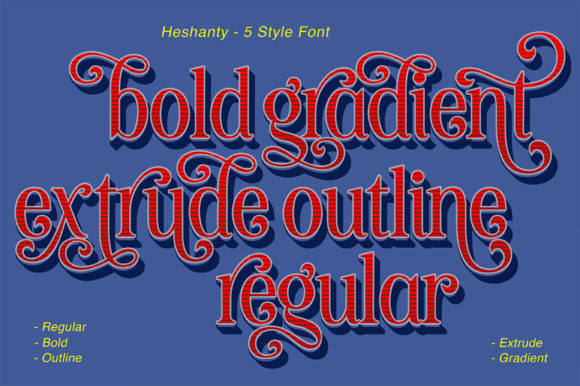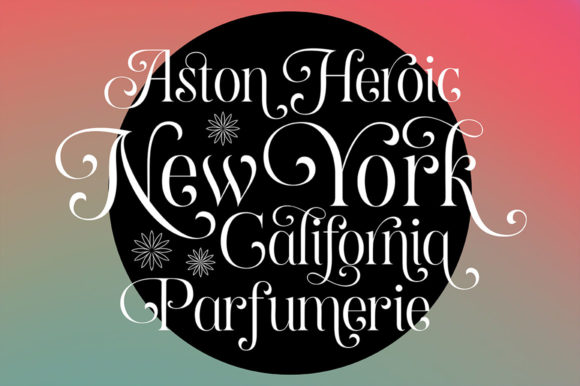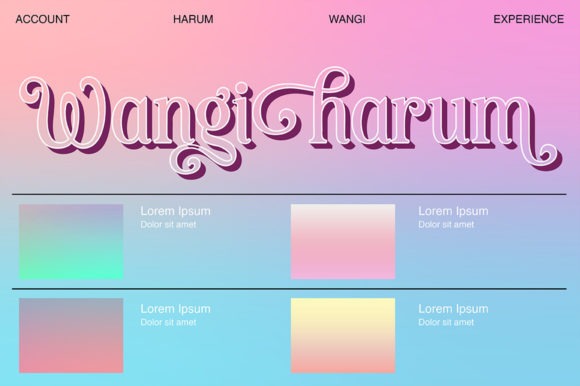
Introduction to Heshanty Font
As a designer, there’s nothing quite like the thrill of bringing a creative project to life. It’s that moment when all the elements come together, and your vision starts to take shape. For me, it’s often the font that sets the tone for the entire design. And that’s why I’m excited to introduce you to the Heshanty Font – a luxurious and elegant serif font that’s about to become your new best friend.
With its high-quality details and transparent background, the Heshanty Font is a design resource that’s sure to elevate your projects to the next level. And the best part? It’s PUA encoded, making it easy to access all the glyphs and swashes you need to create stunning designs. Whether you’re working on a free download or a high-end commercial project, the Heshanty Font is the perfect choice for designers who demand the best.
Key Features of Heshanty Font
- Unique Hand-Drawn Design: The Heshanty Font is a hand-drawn design that offers a creative and artistic touch to any project.
- Perfect for Creative Projects: The Heshanty Font is ideal for creative projects, such as logos, branding, and typography-based designs.
- Easy to Customize: With its unique hand-drawn design, the Heshanty Font is easily customizable to fit any design style or theme.
Honest Review: Heshanty Font
I recently had the chance to work with the Heshanty Font, and I must say it’s been a game-changer for my creative projects. This font is perfect for designers who want a high-quality, unique typography solution.
- ✨ High-quality design: The Heshanty Font is incredibly well-designed, with clean lines and a modern aesthetic.
- ⚠️ Limited character set: While the font is available for free, the character set is somewhat limited, which may not be suitable for all projects.
- ⚠️ Not ideal for large-scale use: Due to the font’s unique design, it may not be the best choice for large-scale use or commercial projects.
Overall, I’m really impressed with the Heshanty Font. It’s a fantastic design resource that can add a unique touch to any creative project. If you’re looking for a high-quality, free font, I highly recommend giving it a try.
Heshanty Font is ideal for a variety of creative projects, including logos, business cards, brochures, presentations, and social media posts. Its high-quality design makes it perfect for professional and personal use. With its transparent background, you can easily integrate it into your design work and make it stand out.